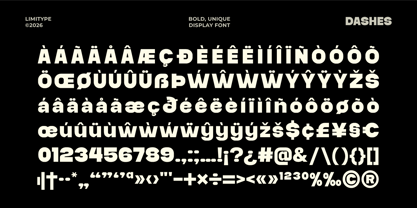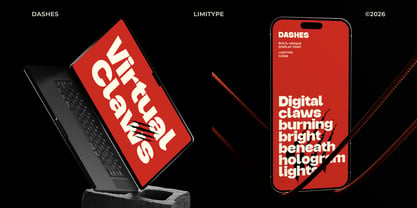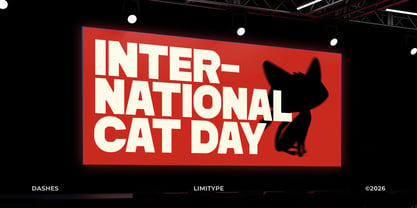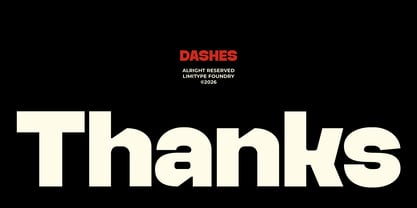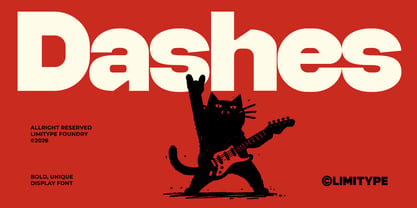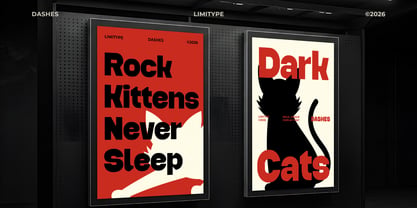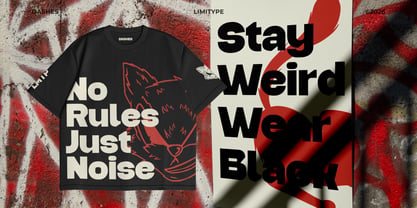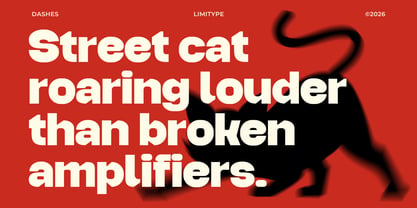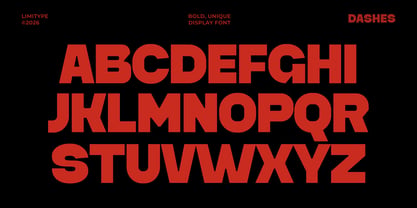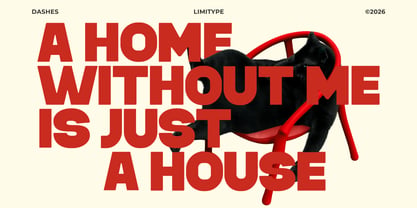
Dashes
von limitype
Die Schriftfamilie Dashes wurde von Muhammad Muammar, Furqan Sudirman entworfen und von limitype veröffentlicht. Dashes enthält 1 Stile. Mehr über diese Familie
Dashes is a bold display font featuring uniquely cut letterforms designed to create a powerful visual impact. Its distinctive character shapes deliver a modern, confident, and attention-grabbing appearance, making it ideal for branding, posters, headlines, packaging, logotypes, and a wide range of creative design projects. With its strong presence and memorable style, Dashes helps designers craft striking visuals that stand out across both digital and print media.
Designer: Muhammad Muammar, Furqan Sudirman
Foundry: limitype